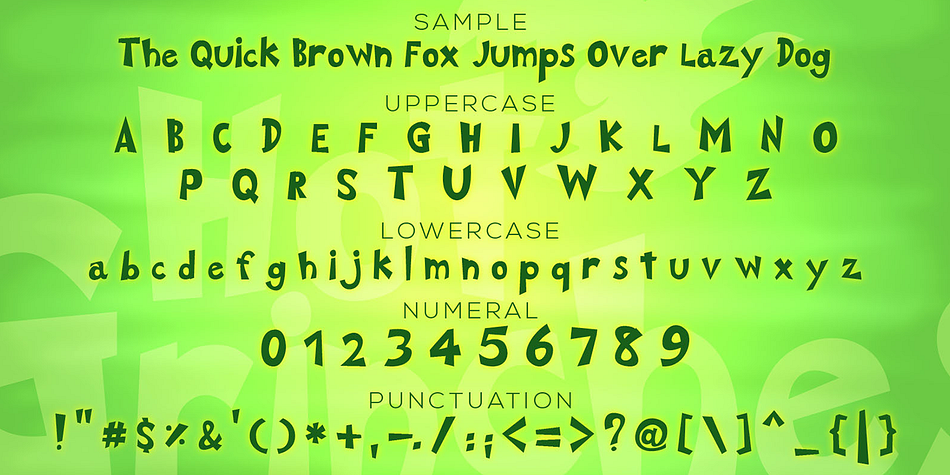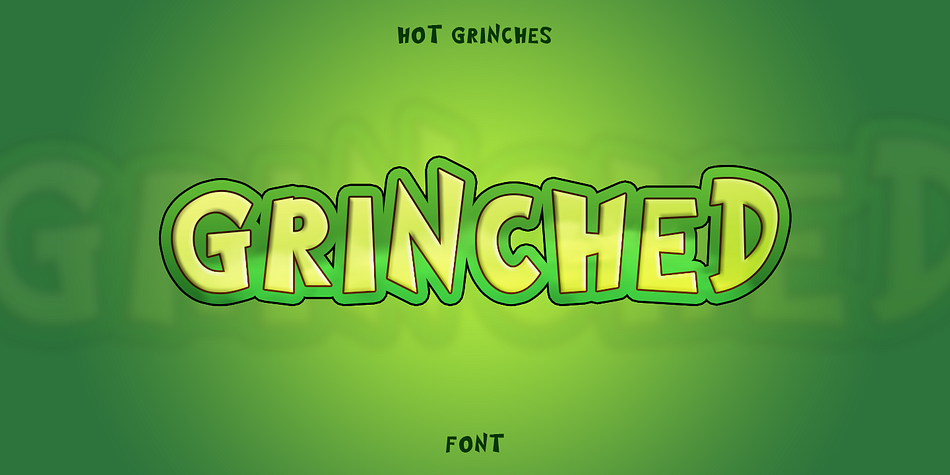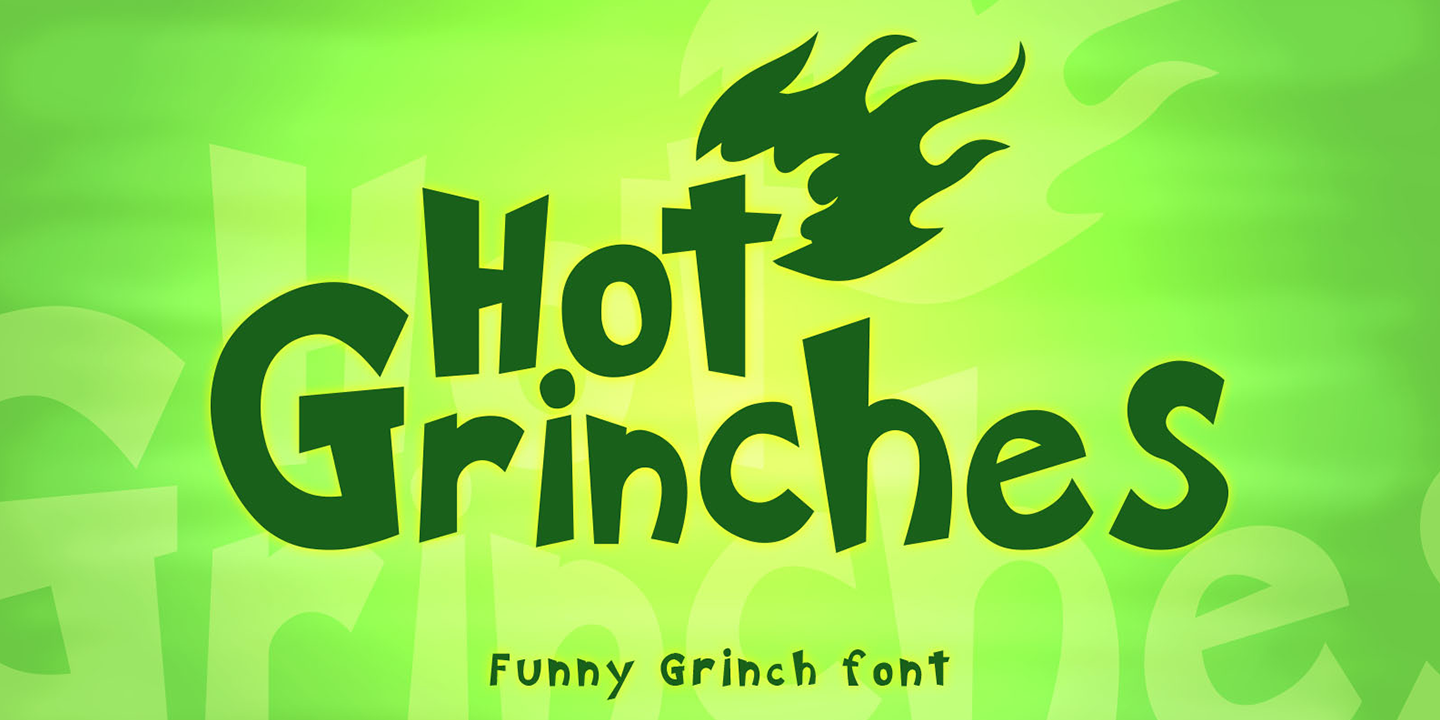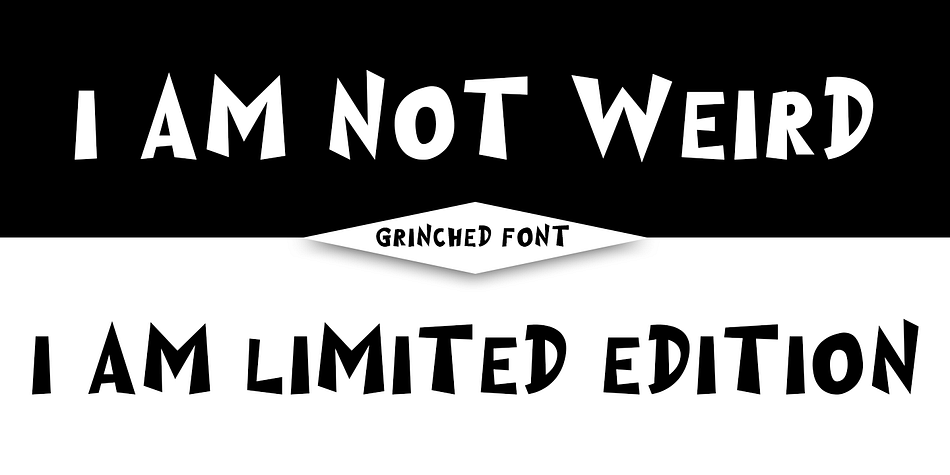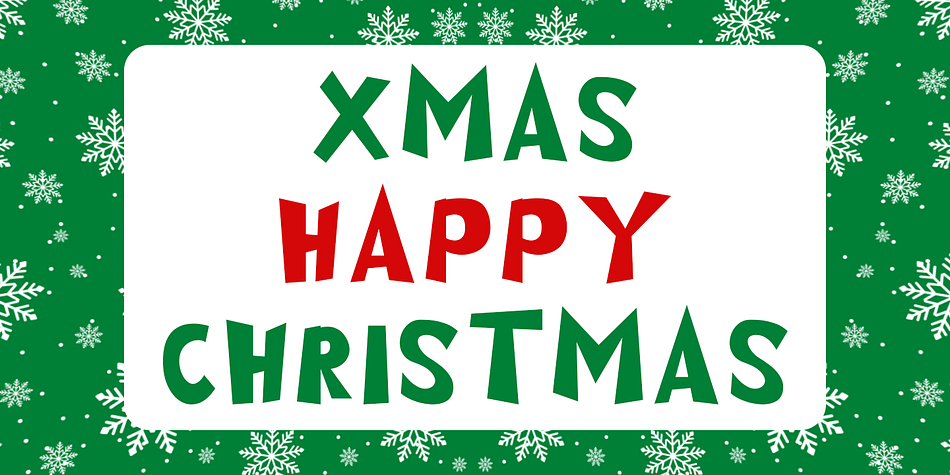
Hot Grinches
Designed by Mohammed Lamjidi, Hot Grinches is a display font family published by Beast Designer.
Hot Grinches Font exudes playful charm and whimsy, making it an ideal choice for vibrant and lively designs.
With its lively characters and distinctive style, this font adds a touch of fun and character to any project.
Perfect for conveying a sense of joy, Hot Grinches Font is particularly well-suited for children’s themes and pairs seamlessly with lively color palettes.
Elevate your designs with this cheerful and spirited font that brings a dash of personality to any creative endeavor.